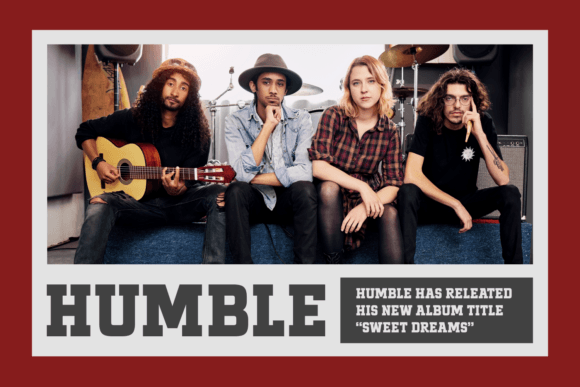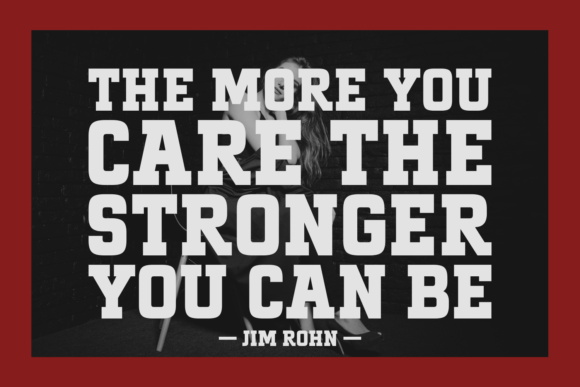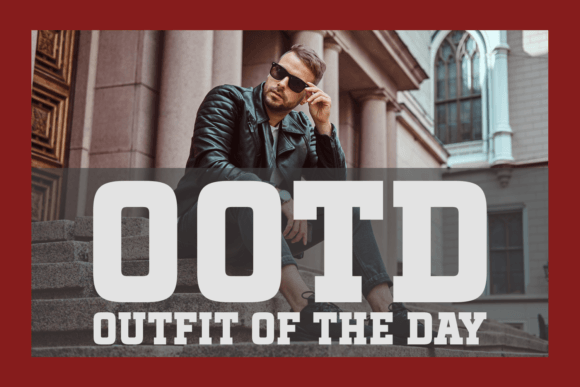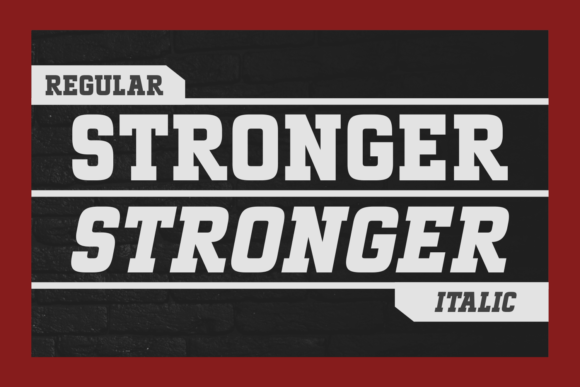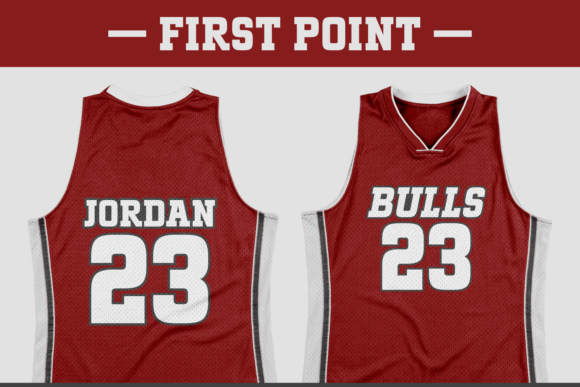
Discover the Power of First Point Font
As designers, we’ve all been there – staring at a blank page, trying to convey a message that’s both visually stunning and effectively communicates our idea. And then, it hits us – the perfect font that elevates our design from ordinary to extraordinary. For me, that moment came when I stumbled upon First Point Font, a stylish and modern slab serif font that combines classic elegance with contemporary flair.
First Point Font is more than just a font – it’s a tool that helps designers make a lasting impression. Its distinct serifs create a strong visual presence, making it perfect for headlines, logos, and bold statements. With clean lines and a balanced structure, First Point Font delivers excellent readability in both print and digital media, making it an excellent choice for various design projects.
Whether you’re a seasoned designer or just starting out, First Point Font is an invaluable addition to your toolkit. Its versatility and sophistication make it a go-to choice for designers who want to create designs that stand out from the crowd.
First Point Font Key Features
- Unique Character Set: This font features a unique character set that includes a wide range of glyphs, including ligatures, swashes, and ornaments, making it ideal for creative and decorative typography.
First Point Font Review
Overall, I was impressed with the First Point Font. Here are some aspects where it shines: ✨
- Consistency: The font has a consistent look throughout, making it great for branding and identity purposes.
- Legibility: The font is highly legible, even at smaller font sizes, which is essential for digital media.
- Neutral: The font’s neutral design makes it easy to pair with various colors and backgrounds.
However, there are some limitations to consider: ⚠️
- Lack of expressiveness: The font may feel too sterile or lacking in personality, which could be a drawback for creative projects.
- Not suitable for headlines: Due to its neutral design, the font may not be the best choice for headlines or titles that require more emphasis.
In conclusion, the First Point Font is a solid choice for projects that require a clean and legible font. While it may not be the most exciting font, it gets the job done. If you’re looking for a font that’s easy to read and works well with various designs, the First Point Font is definitely worth considering.
Tips for Getting the Most Out of First Point Font
To get the most out of First Point Font, consider the following tips:
- Use it in combination with other fonts to create a unique and visually appealing design.
- Experiment with different font sizes and styles to find the perfect balance for your design.
- Use it to create a sense of elegance and sophistication in your design.
First Point Font is commonly used in:
- Business cards and letterheads.
- Wedding invitations and event materials.
- Magazine and newspaper headlines.
Does First Point Font support OpenType features?
Yes, First Point Font supports a range of OpenType features, including ligatures, swashes, and contextual alternates. These features can be accessed through font software or design applications that support OpenType, allowing designers to create complex and sophisticated typography.